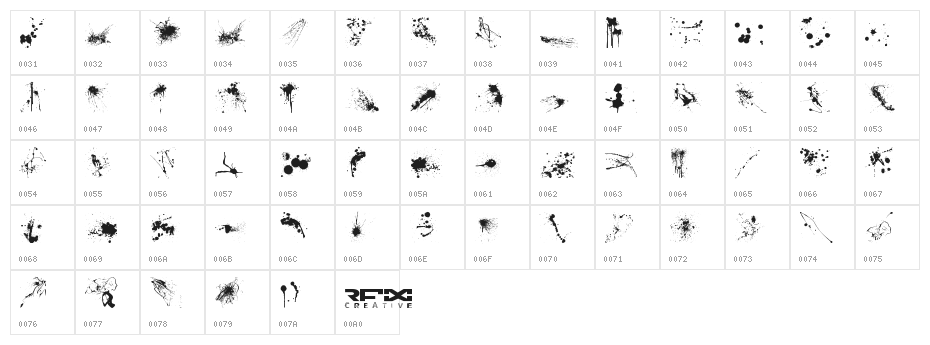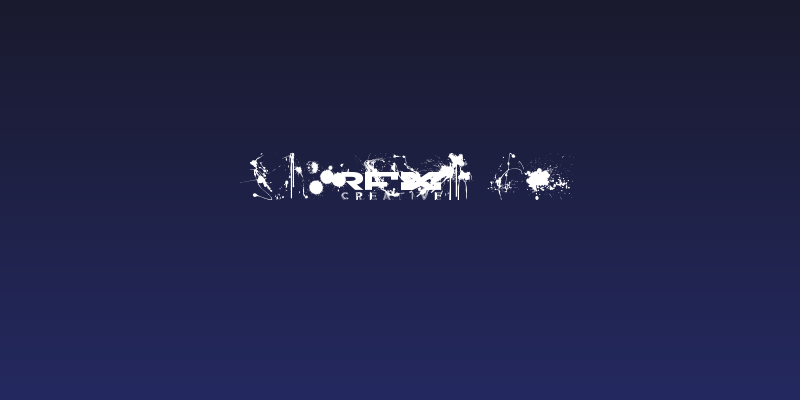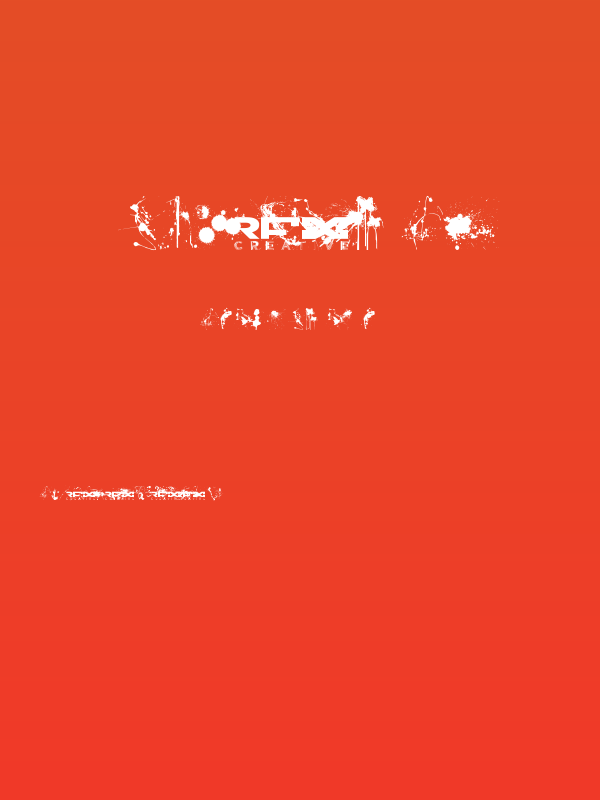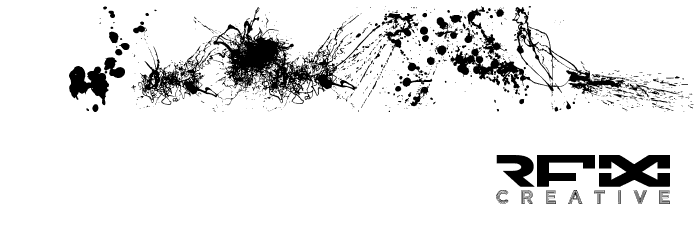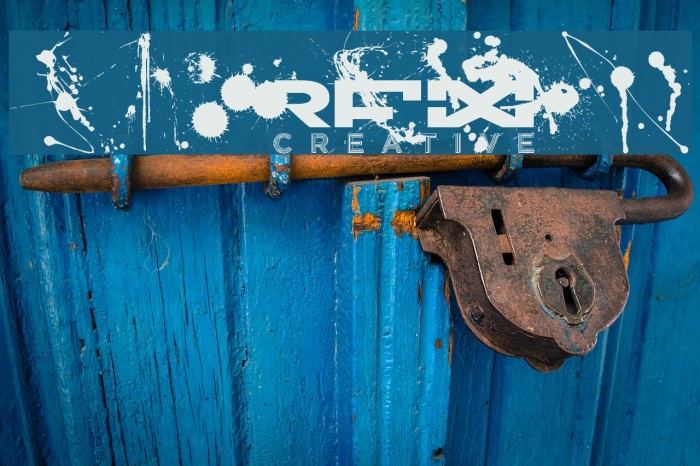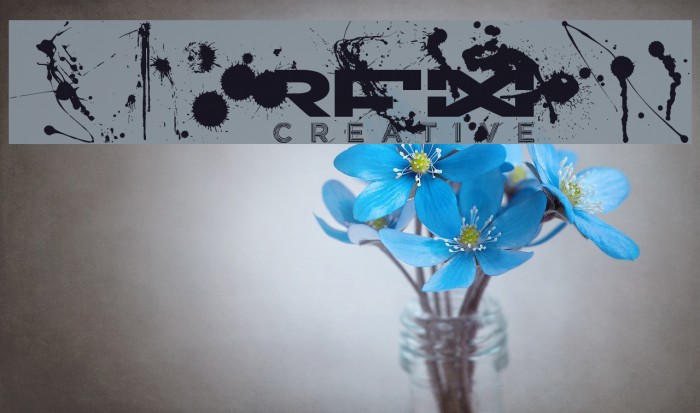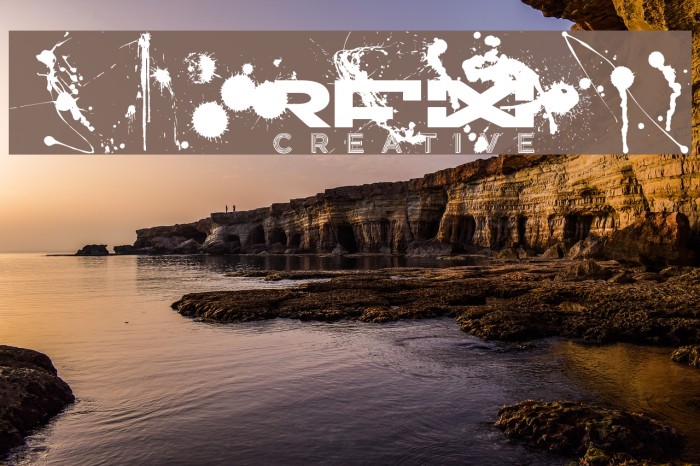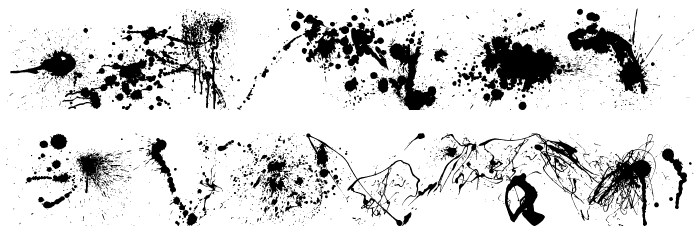
RFX Splatz Font
RFX Splatz Description
This font features an abstract, splattered ink design that gives each character a unique and chaotic appearance. The letters are formed by irregular splatters and drips, creating a dynamic and artistic look. The overall style is highly decorative, making it suitable for projects that require a bold and unconventional aesthetic. The font's design mimics the randomness of ink splatters, providing a sense of movement and energy. It is not suitable for body text due to its complexity and lack of uniformity but can be an excellent choice for creative headlines, posters, and artistic projects.
| Use Case | Headlines, Logos, Artistic Projects |
| Proposed Projects | Ideal for creative headlines, artistic posters, album covers, and any project needing a bold, unconventional aesthetic. |